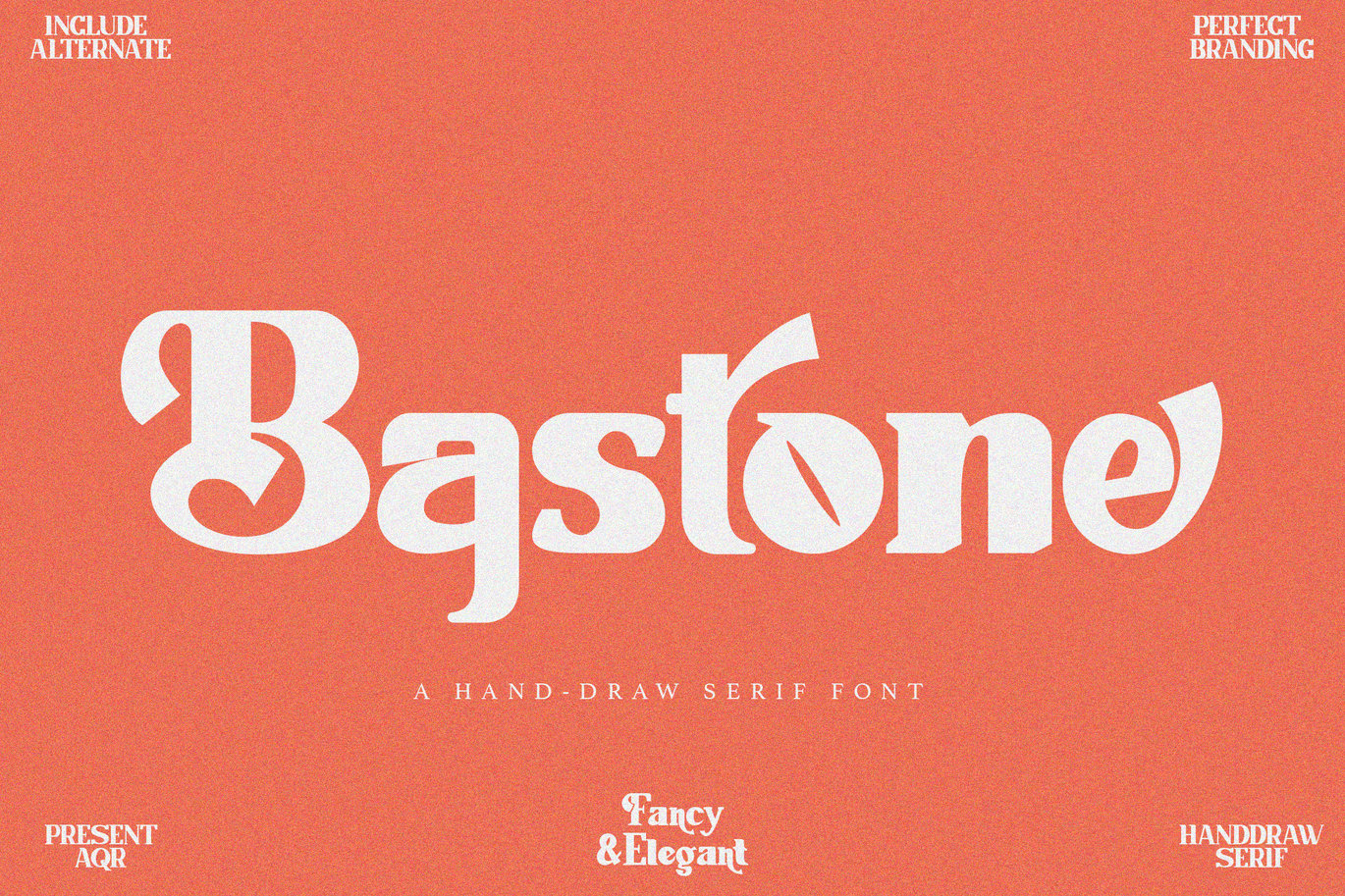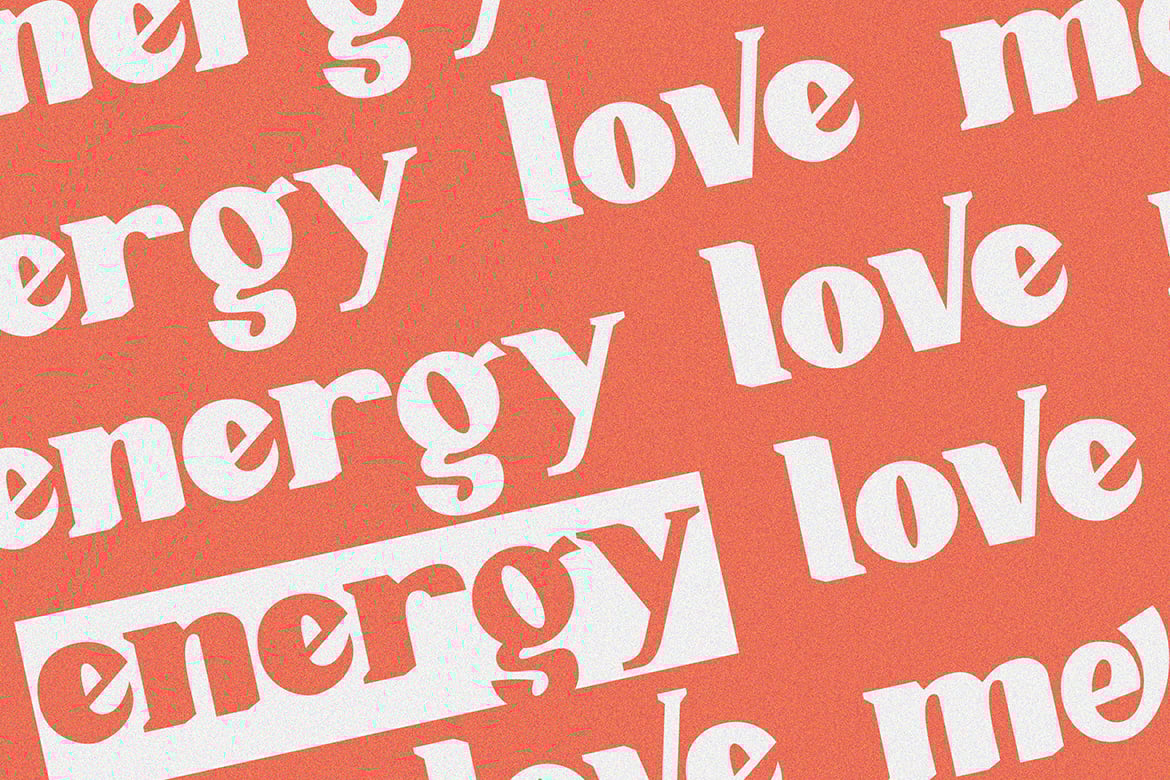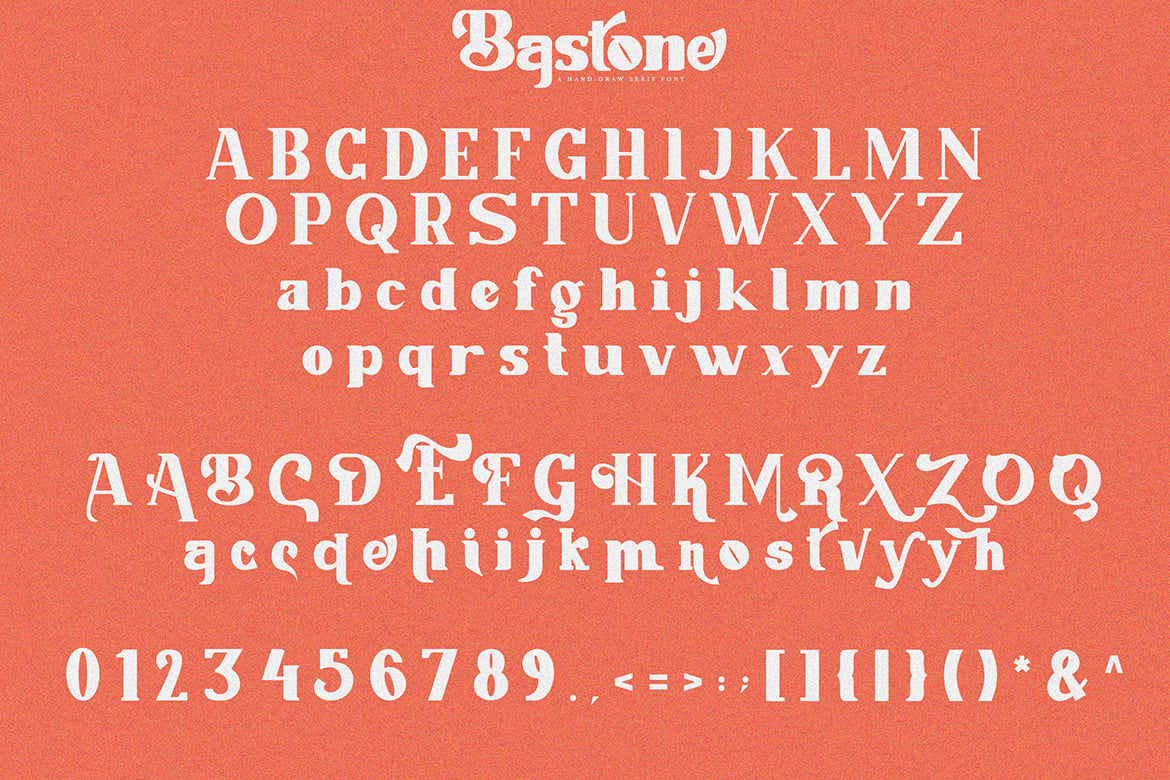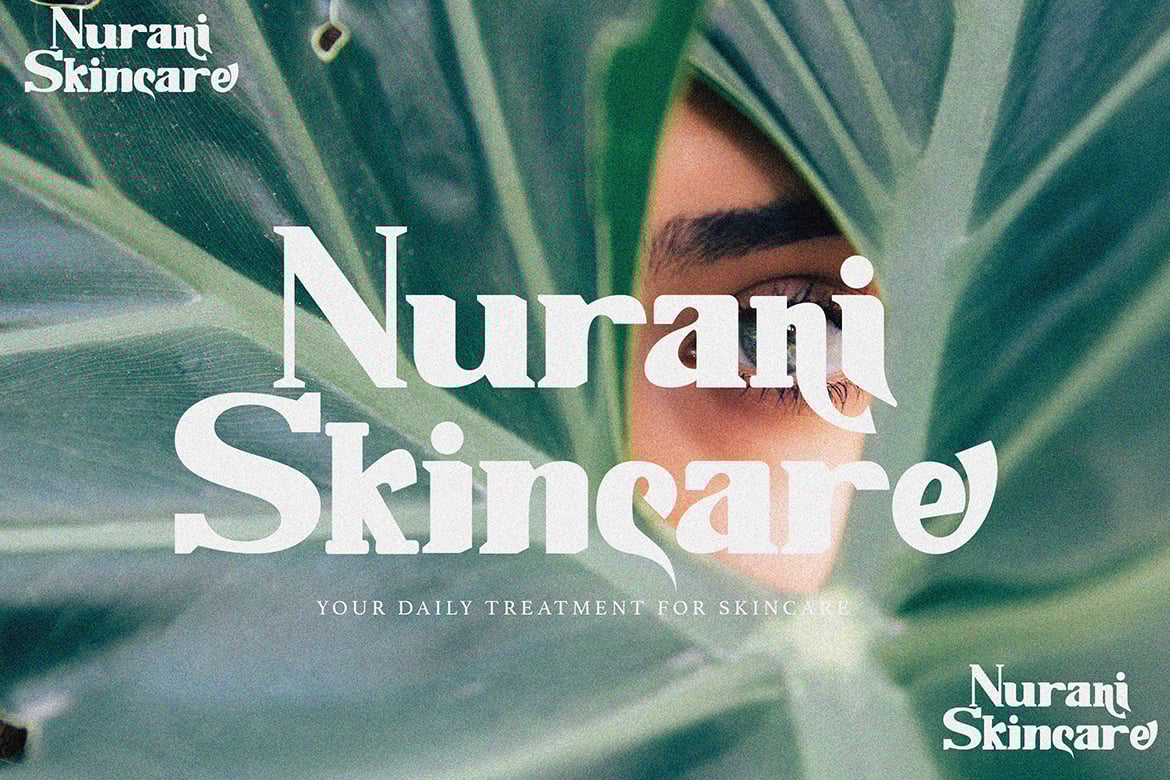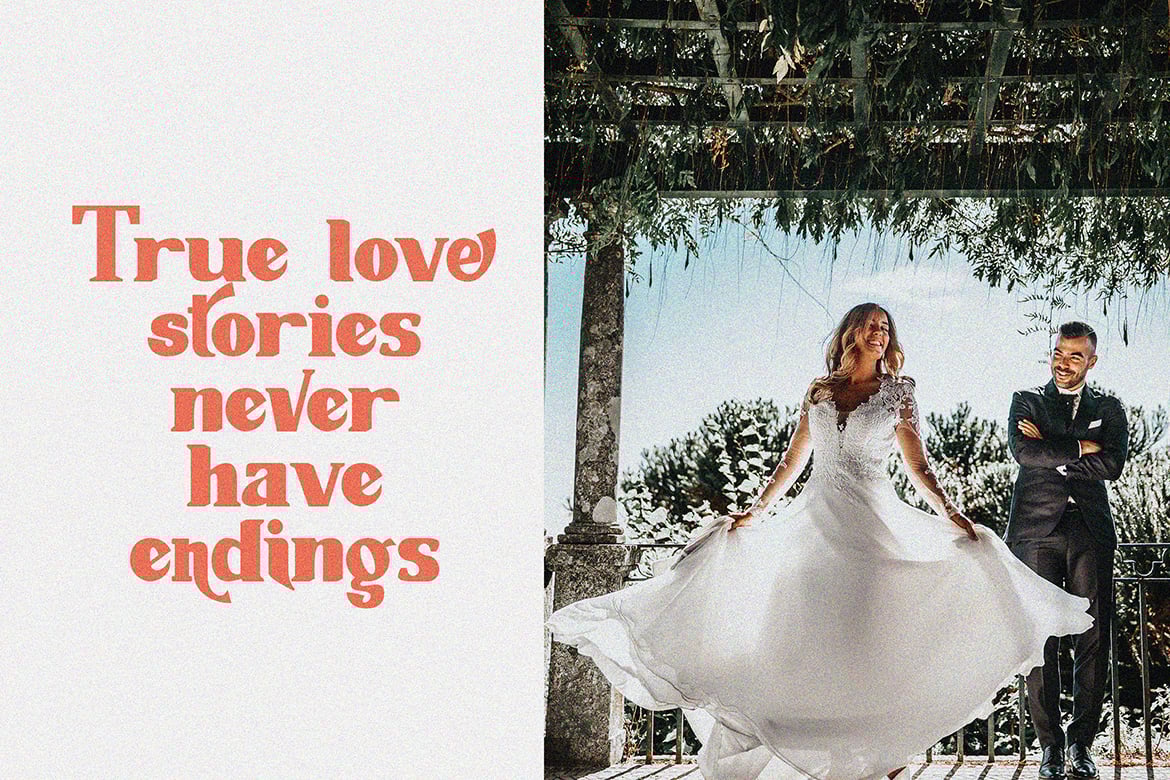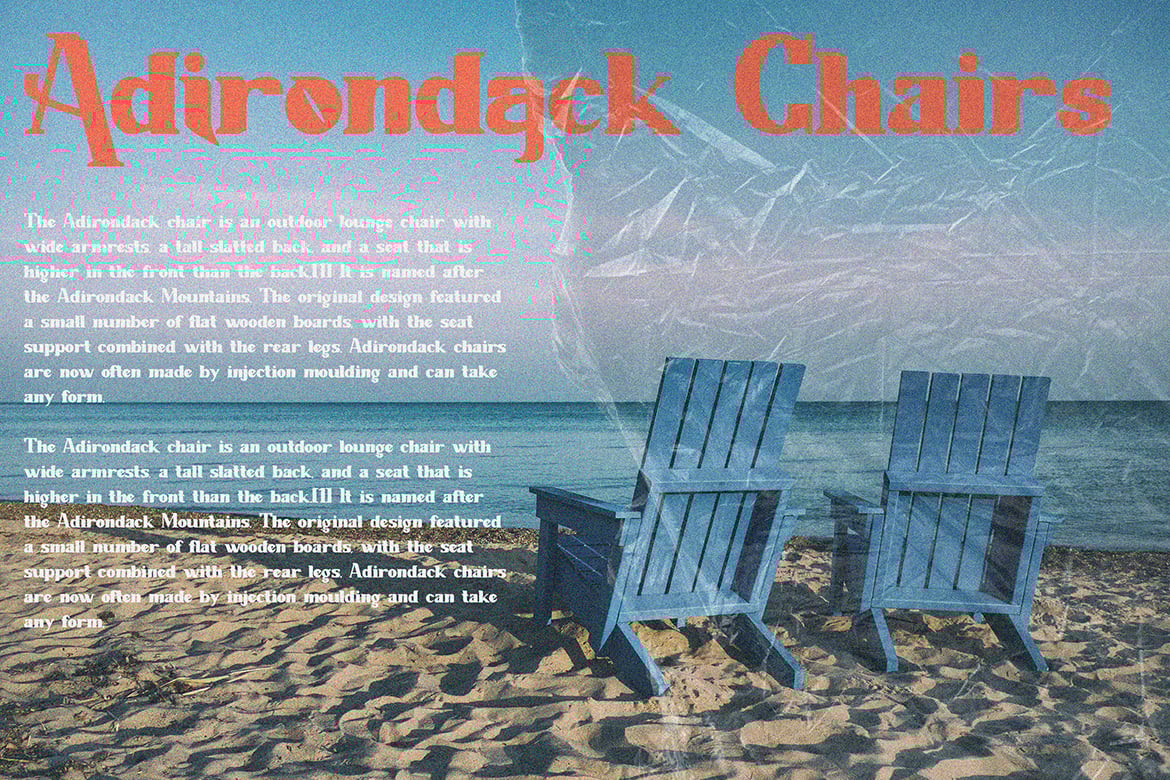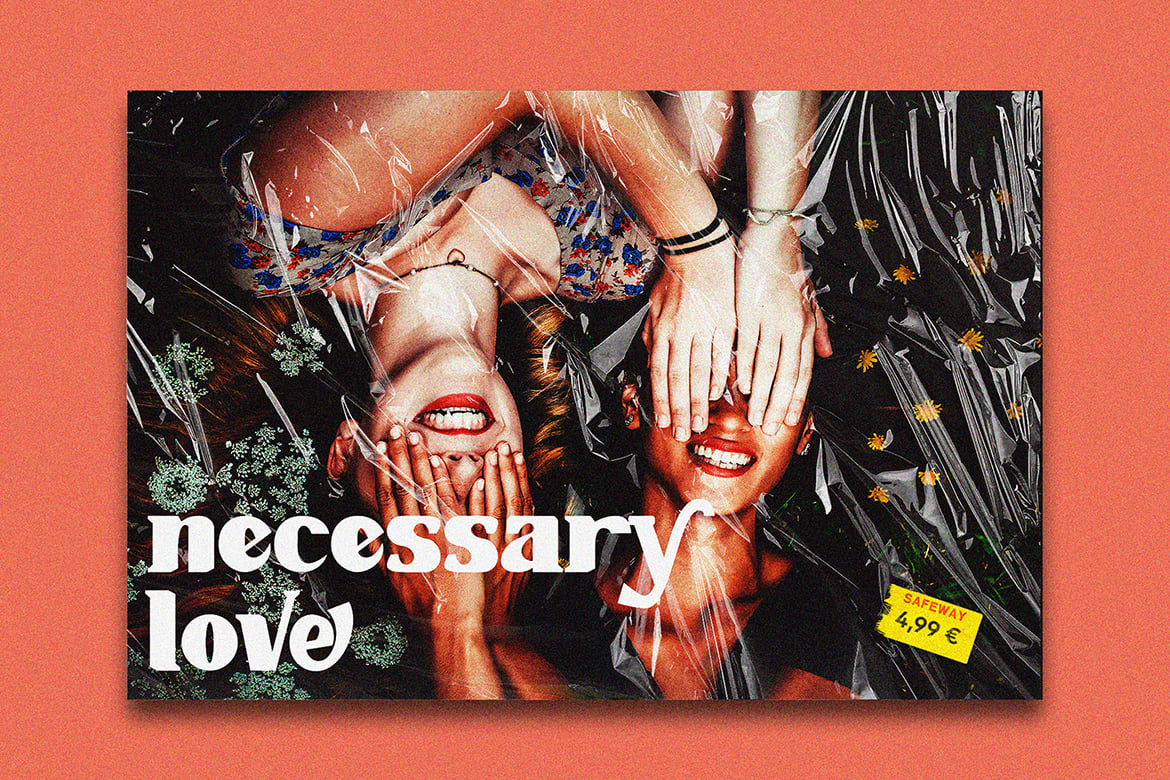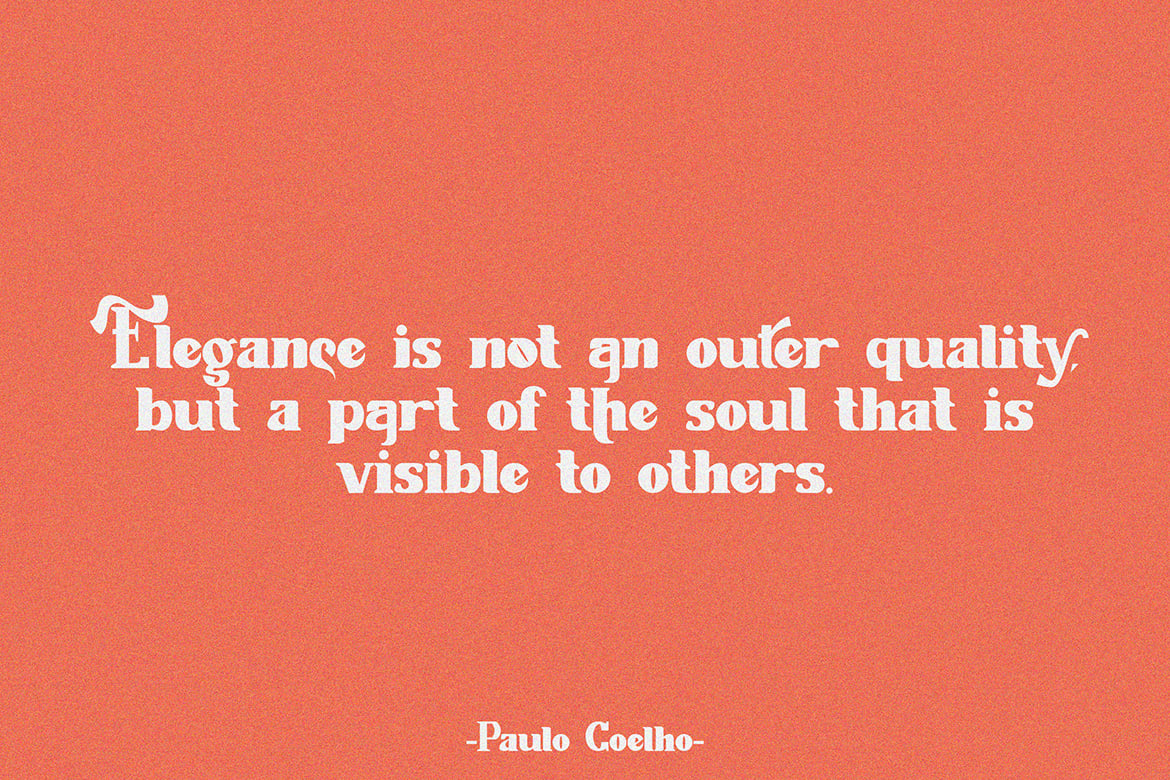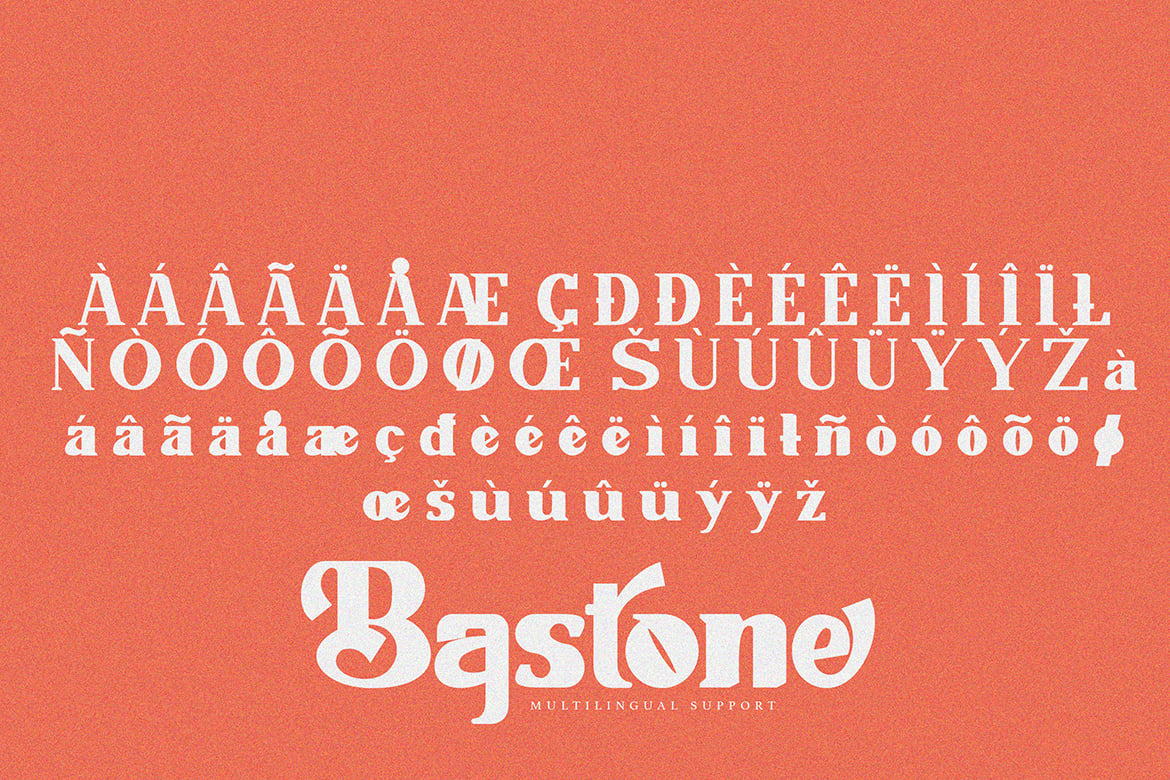
Bastone – Handdraw Serif Font
Bastone – Handdraw Serif Font contains a lowercase, uppercase, symbol, and also supports multi-language. There’s a lot of ligature in this font. Bastone – Handdraw Serif Font also comes with ligatures, stylistic alternates and many more.
this font suitable for fashion, branding, catalog and other design that you want.